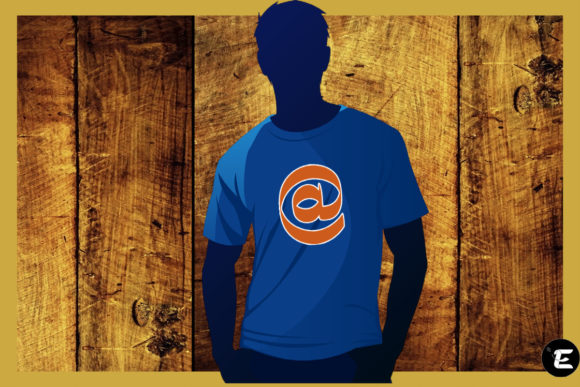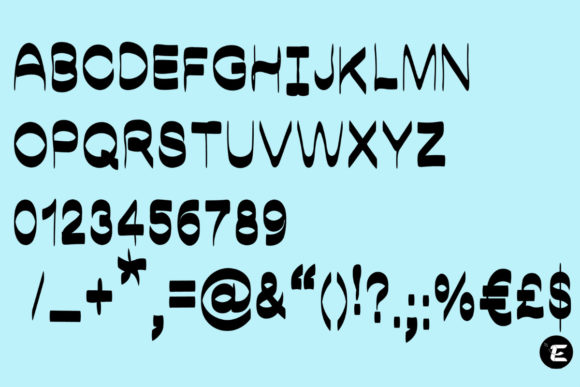
Hello Font
About Hello Font
Hello is a playful and modern handwritten font. Add it to each of your party invitation, gathering or pretty much any design that requires a touch of youth and joy.